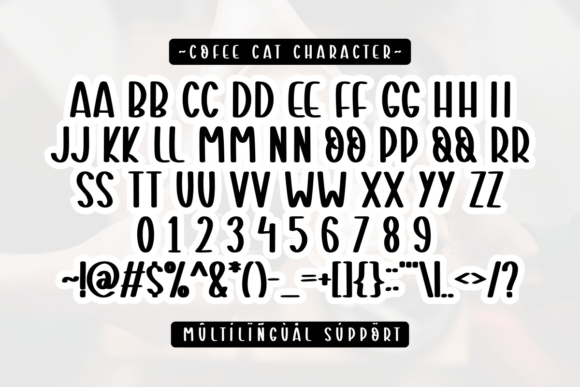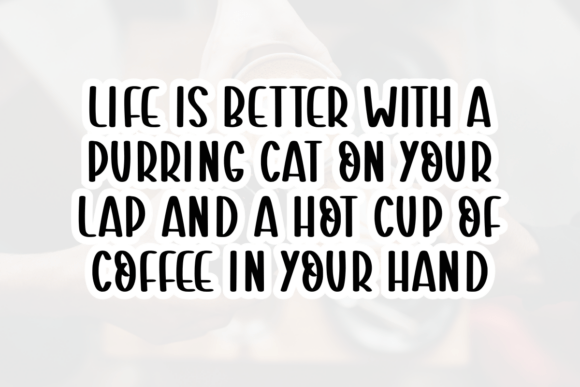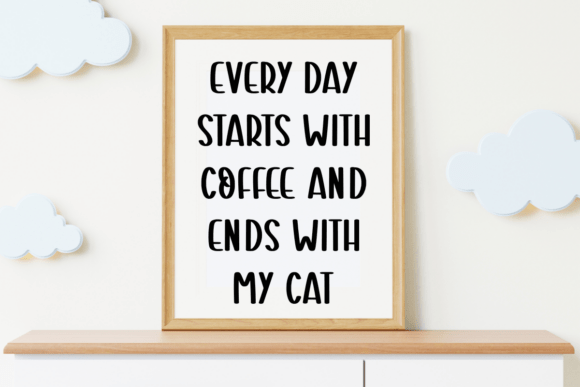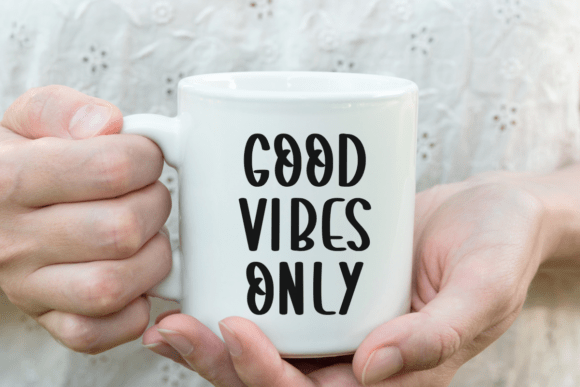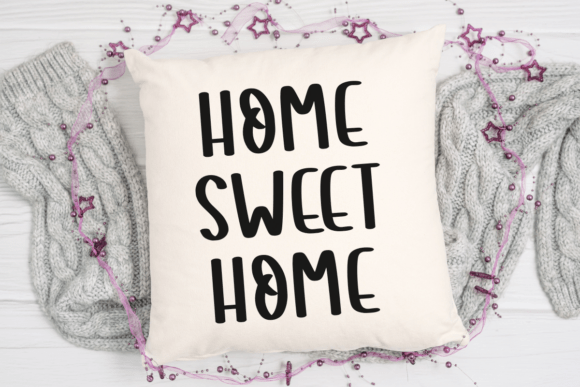
The Purrfect Font: A Deep Dive into Coffee Cat Font
I’ll never forget the time I was working on a wedding invitation project, and my client asked for a font that was both cute and elegant. I scoured the internet, trying out font after font, but nothing seemed quite right. That was until I stumbled upon Coffee Cat Font. This adorable sans serif font has been a game-changer for my designs, and I’m excited to share its awesomeness with you! 😊
- ✨ Cute and minimalist design: Coffee Cat Font is perfect for creating designs that are both playful and sophisticated.
- ✅ Highly versatile: This font is suitable for a wide range of projects, from greeting cards and wedding invitations to gift labels, mugs, and t-shirts.
- 💡 Easy to read: The clean and simple design makes it easy to read, even at small sizes.
While Coffee Cat Font is an amazing font, there are a few things to keep in mind:
- ⚠️ Limited character set: As a sans serif font, it may not have all the special characters or glyphs you need for certain projects.
- 🤔 Not ideal for body text: While it’s easy to read, Coffee Cat Font is better suited for headlines, titles, and short paragraphs rather than long blocks of text.
Some of the OpenType features you can expect to find in Coffee Cat Font include:
- Ligatures: These are special character combinations that can be used to create more visually appealing text.
- Stylistic alternates: These are alternative glyphs that can be used to add more personality to your text.
The Backstory of Coffee Cat Font
Coffee Cat Font was designed by a talented font designer who wanted to create a font that was both cute and elegant. The designer was inspired by the playful and whimsical world of cats, and wanted to capture that spirit in a font that could be used for a wide range of projects.
| Font Name | Coffee Cat Font |
| Author | CraftedType Studio |
Q: What is Coffee Cat Font?
Coffee Cat Font is a cute and minimalist sans serif font that’s perfect for creating designs that are both playful and sophisticated.
Q: What can I use Coffee Cat Font for?
Coffee Cat Font is highly versatile and can be used for a wide range of projects, from greeting cards and wedding invitations to gift labels, mugs, and t-shirts.
Q: Is Coffee Cat Font easy to read?
Yes, Coffee Cat Font is easy to read, even at small sizes. Its clean and simple design makes it perfect for designs that need a clear and concise message.